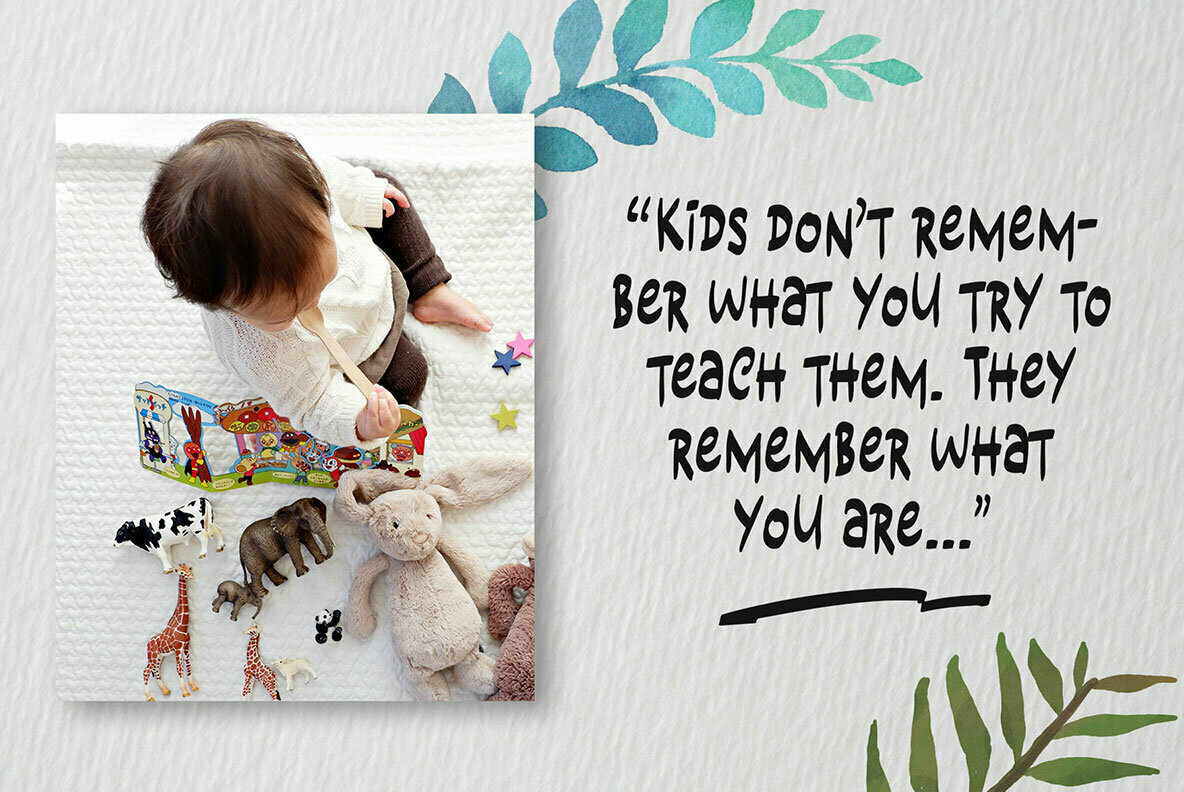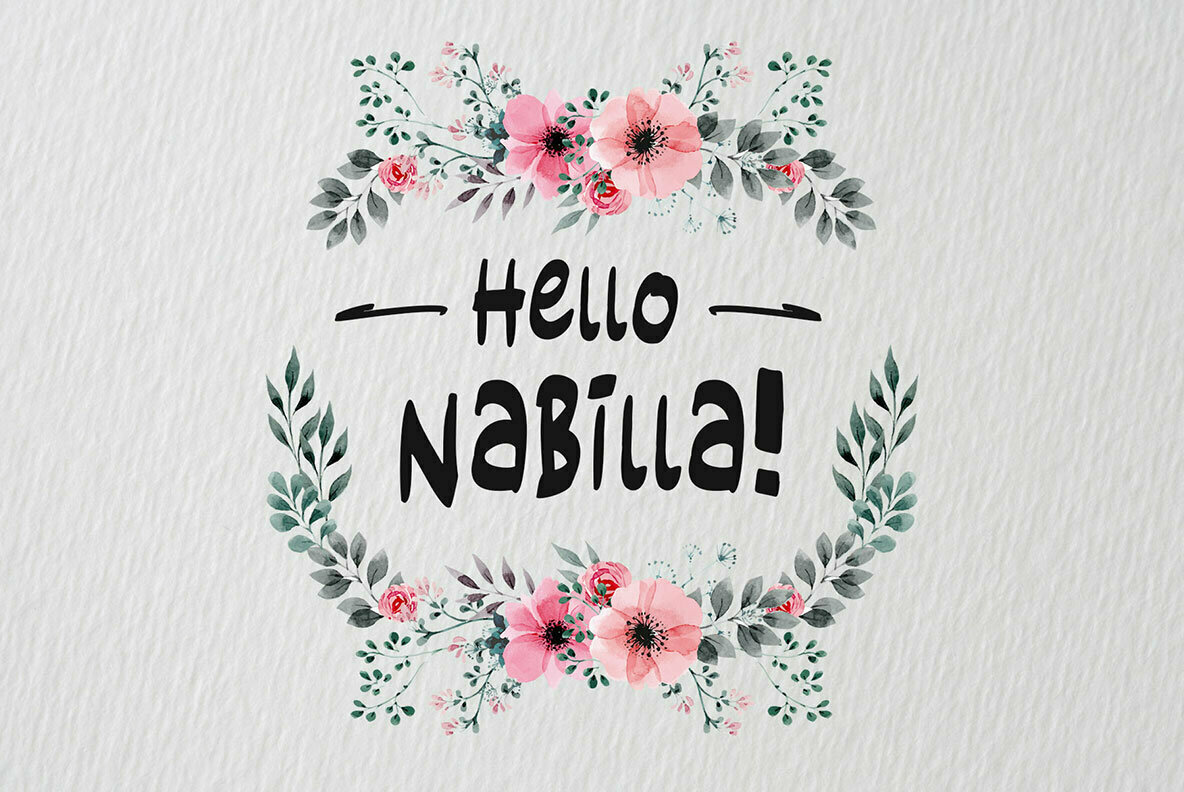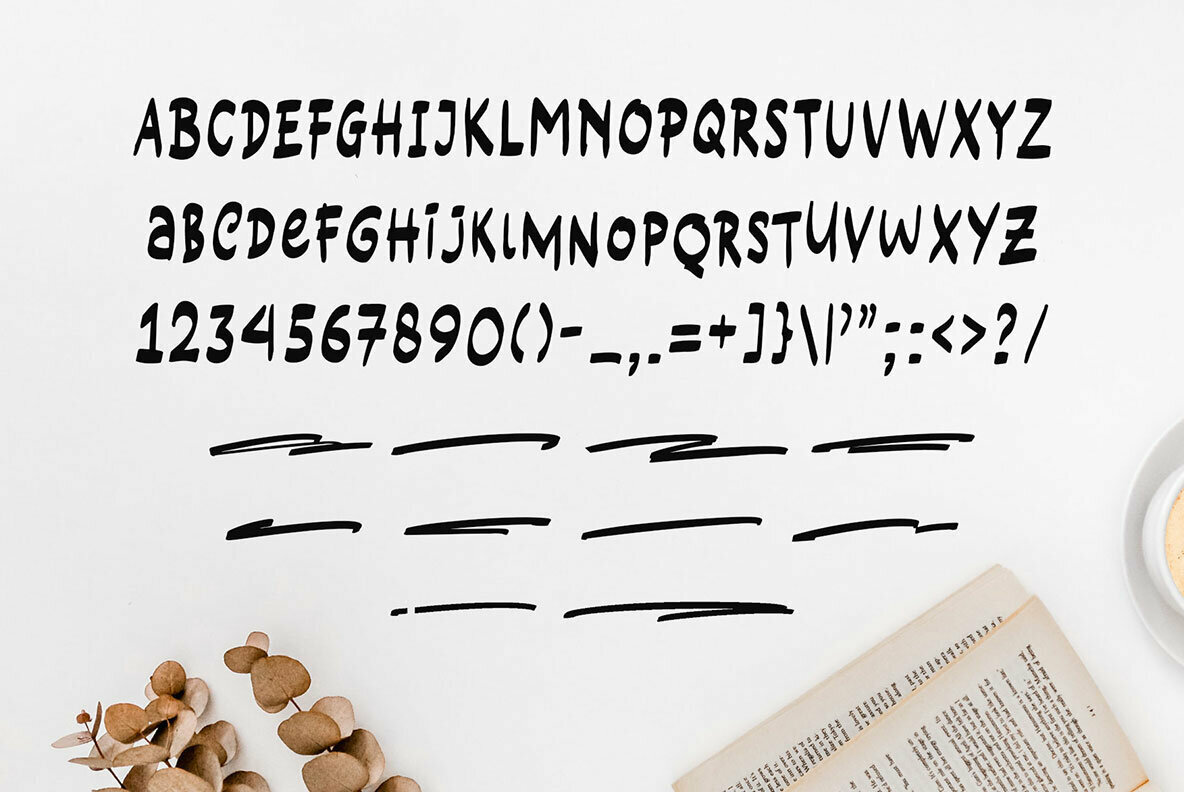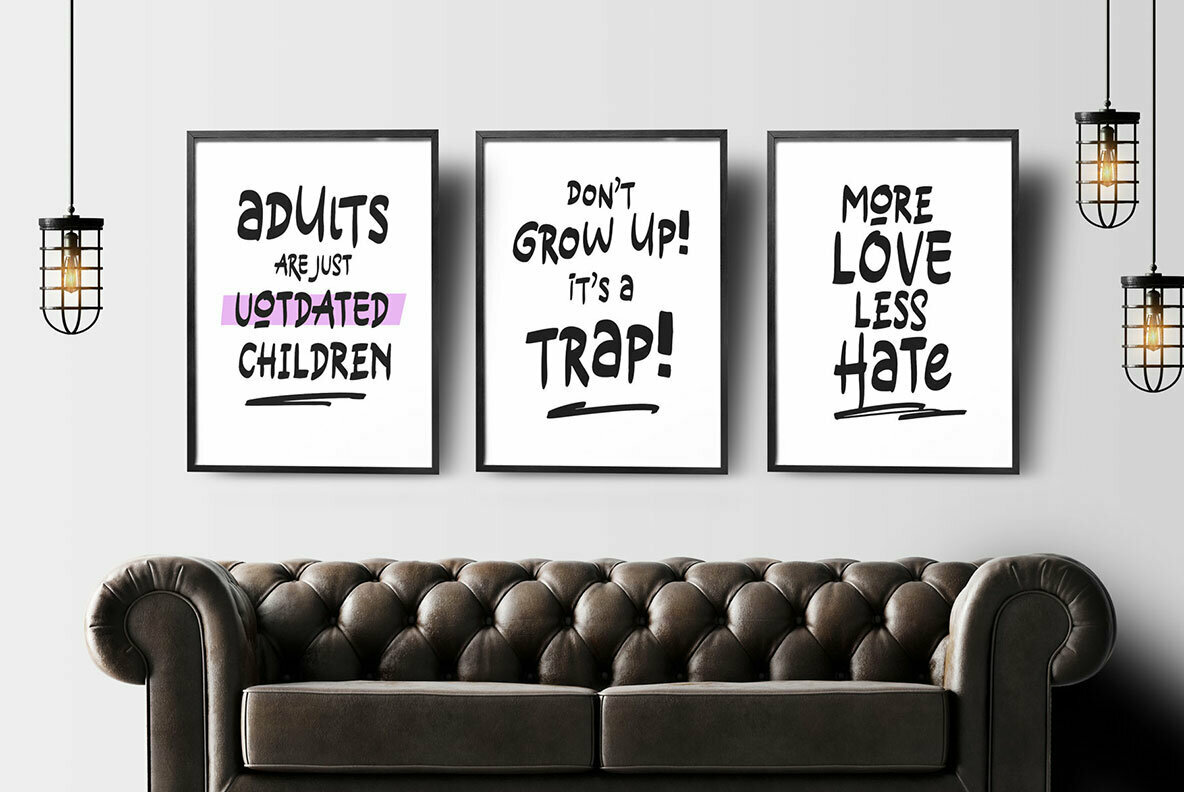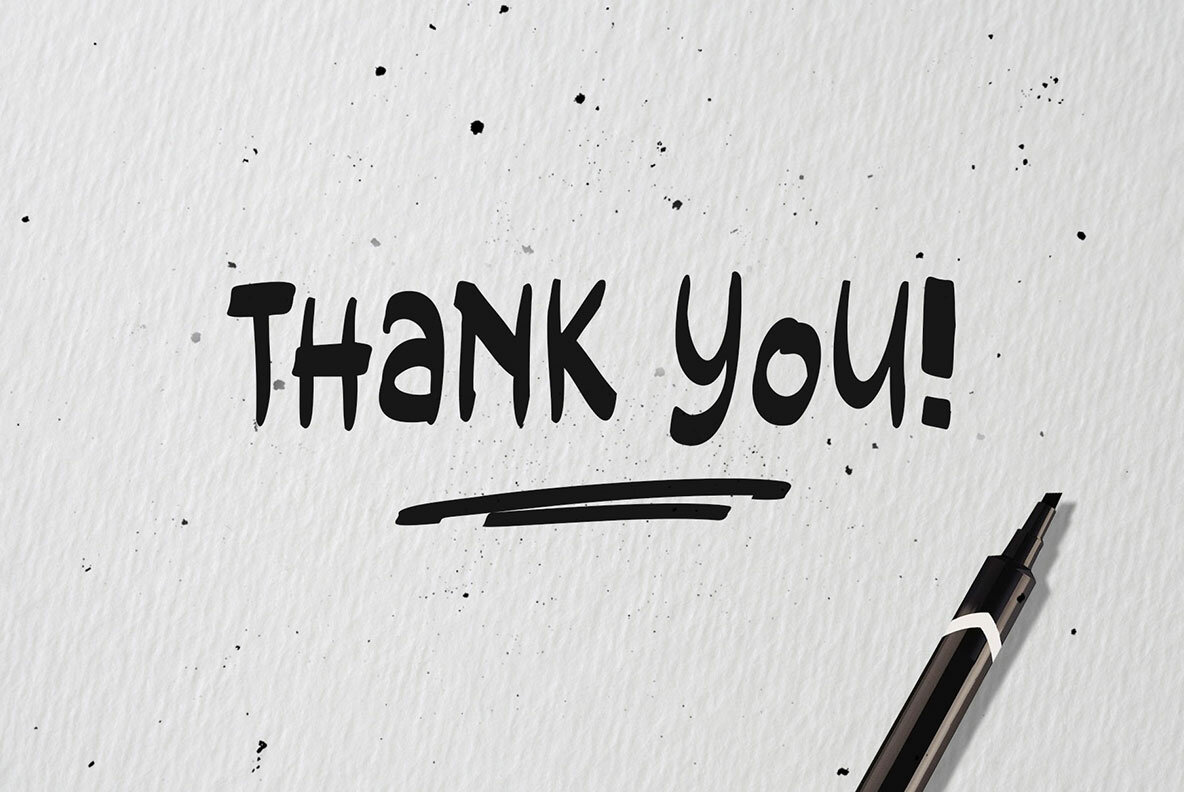
Formarker Font
Formarker
Formarker brings the whimsical charm of a hand-drawn aesthetic inspired by price boards from general stores and a touch of children's whimsy. Crafted meticulously with a 90-degree wet marker tip, this font offers a unique vectorization that enhances its graphic appeal. Perfect for those seeking a distinctive yet functional design element, Formarker thrives in both professional and playful settings. Formarker's versatility makes it an excellent choice for display, headlines, T-shirts, quotes, labels, posters, and children's books. This font promises to captivate and offer endless creative opportunities.Formarker: Hand-Drawn Typeface with a Playful Spirit